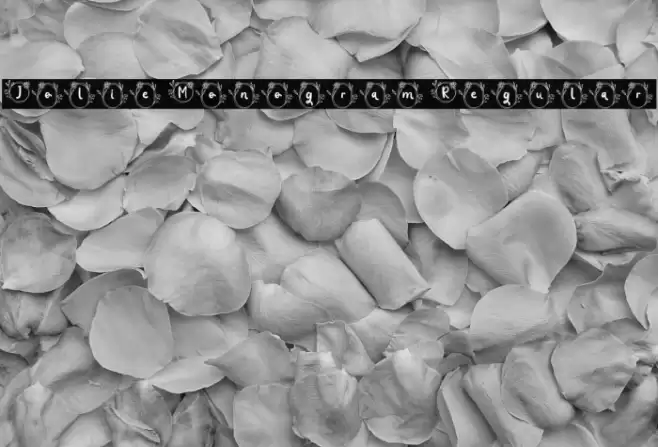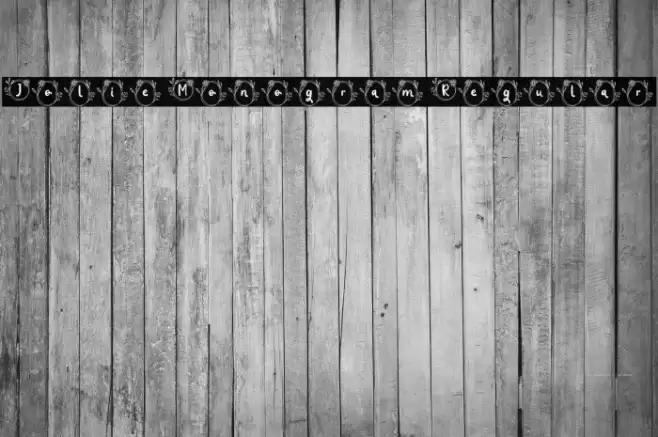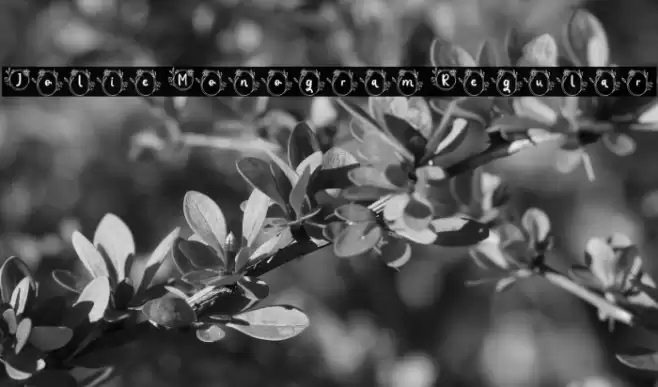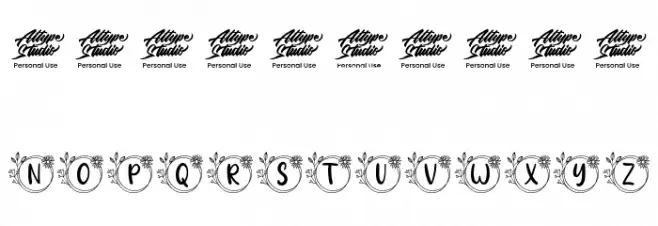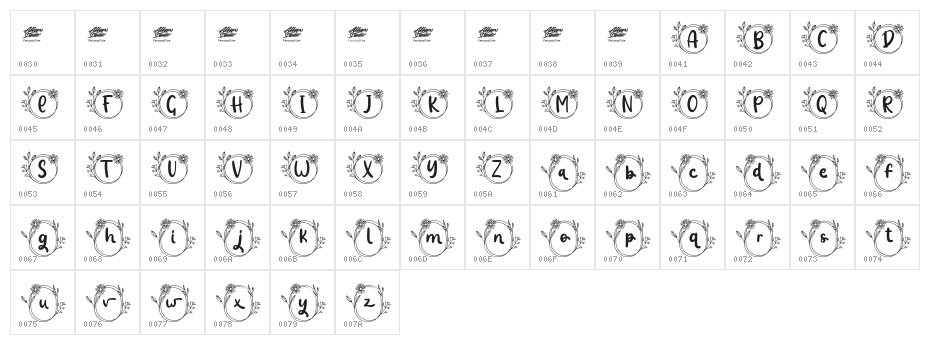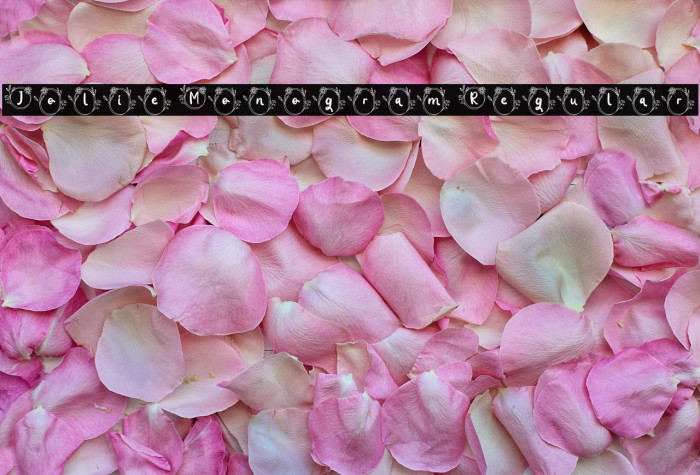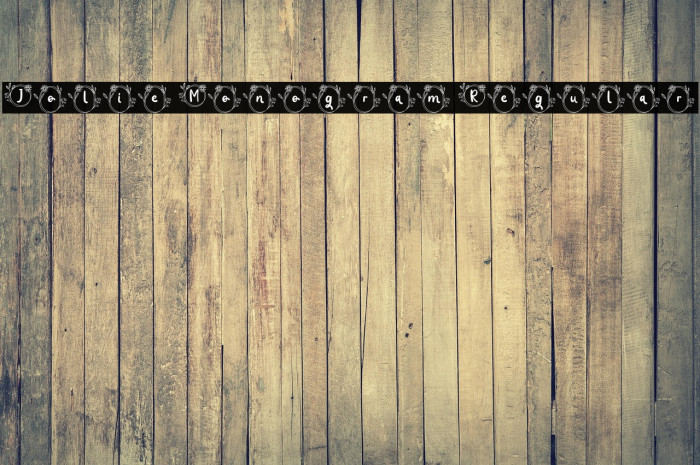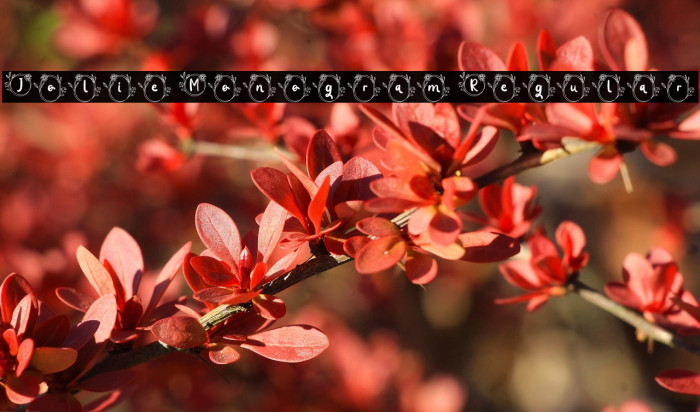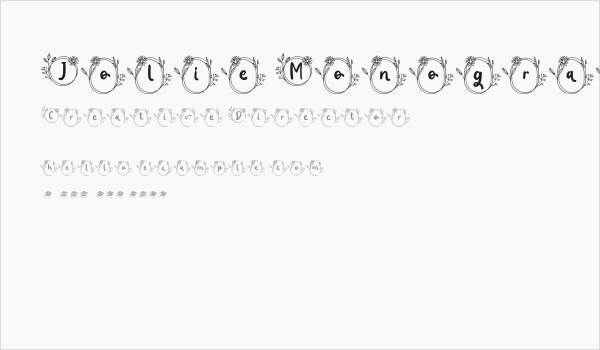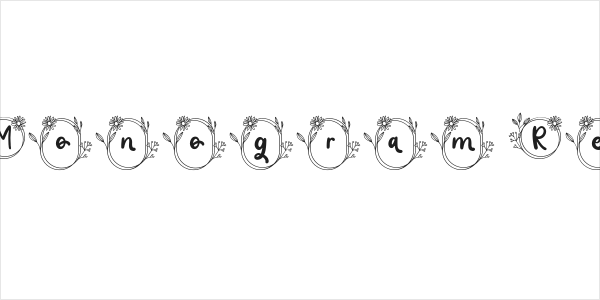
Jolie Monogram Regular Font
Jolie Monogram Regular Description
This font features an elegant and decorative style, with each letter encased in a circular floral wreath. The uppercase and lowercase letters are designed with a script-like flair, adding a touch of sophistication and charm. The floral elements surrounding each character enhance its ornamental appeal, making it ideal for projects that require a touch of elegance. The font's unique design makes it suitable for monograms, invitations, and other decorative uses where a personalized and artistic touch is desired.
An elegant, decorative font with floral wreaths encasing script-like characters from Regular fonts.
- Proposed Projects: Ideal for wedding invitations, personalized monograms, greeting cards, and decorative branding.
- Use Case: Logos, Invitations, Decorative Text